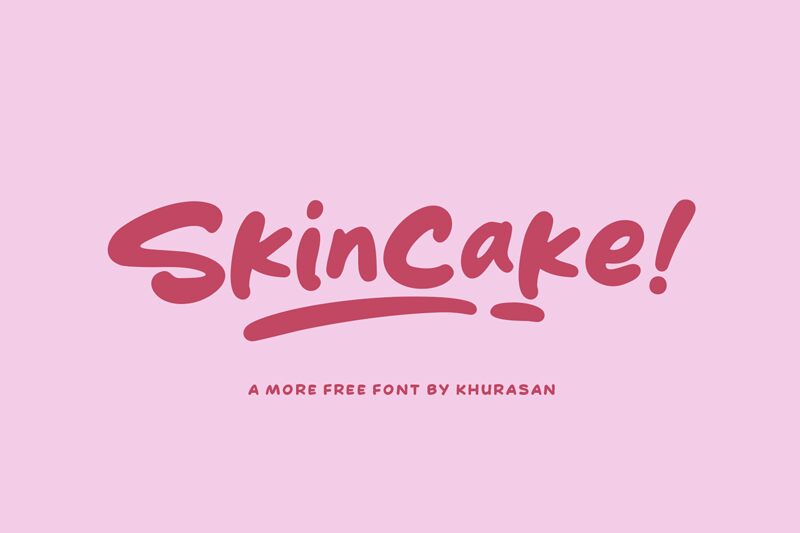
Skincake
Skincake, designed by Khurasan, is a whimsical display font that leaps off the page with its cartoon-style flair. This bold typeface boasts an expanded width that adds a playful, yet assertive presence to any design it graces. The exaggerated curves and friendly nature of Skincake make it perfect for projects aiming to exude warmth and approachability.
Its playful aesthetic is not just visually engaging but also versatile, making it suitable for everything from children's books and party invitations to branding projects that desire a touch of fun. The chunky letters are easy to read, which means they can be used in larger blocks of text without losing their charm.